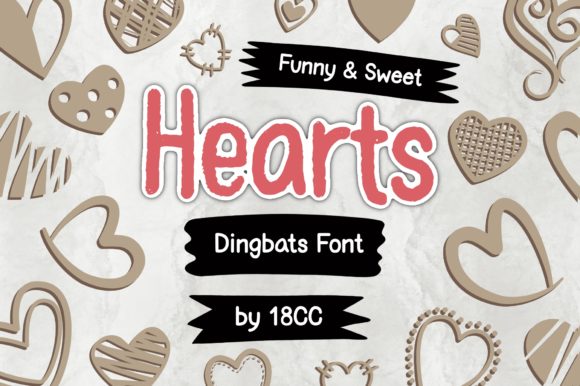
Dive into the Heart of Design: Hearts Font - The Perfect Match for Your Creative Endeavors
Welcome to the world of charm and elegance, where fonts transform words into works of art. Meet Hearts Font, a dingbats font that's ready to infuse your designs with a touch of love and playfulness.
Hearts Font - A Stroke of Genius for Your Creative Journey
With its meticulously crafted characters and symbols, Hearts Font stands out as the ultimate choice for those seeking a font that speaks volumes. Whether you're a seasoned designer or just starting your artistic journey, this font is your perfect companion. Unleash your imagination and witness how Hearts Font elevates your designs to new heights of creativity.
The Perfect Harmony of Form and Function
Hearts Font is not just another font; it's an expression of emotions, a reflection of your personal style. Its ability to blend seamlessly with various design aesthetics makes it a versatile tool for creating logos, branding materials, social media content, and handcrafted DIY projects. The possibilities are endless, limited only by your imagination.
Capture Hearts with Every Design
Hearts Font's charm lies in its versatility, making it the ideal choice for designers looking to leave a lasting impression. Its playful nature adds a touch of whimsy to your logos, while its elegant strokes bring a touch of sophistication to your branding materials. On social media, Hearts Font will make your posts and stories stand out, capturing the attention of your audience. And for those who love crafting, Hearts Font is your secret weapon for creating unique and personalized DIY projects that exude warmth and charm.
Hearts Font - The Key to Unlocking Your Design Potential
With Hearts Font by your side, you'll embark on a creative journey like no other. Its user-friendly interface and compatibility with various design software make it accessible to designers of all levels. Experience the joy of creating designs that resonate with your audience, leaving a lasting impression that speaks to their hearts.